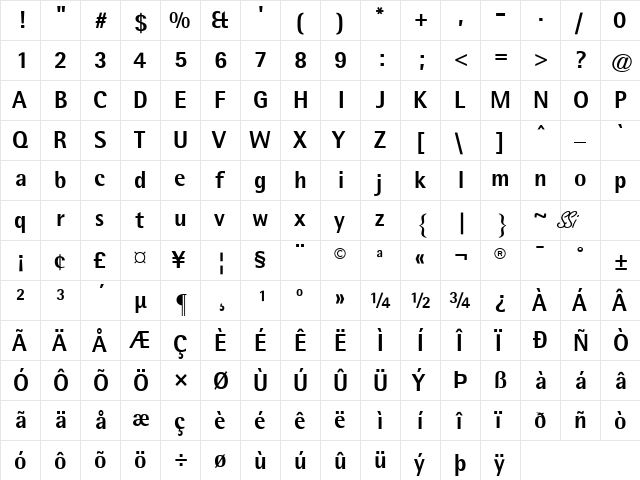
Libre SemiSans Black SSi Extra Bold
Design Context for Libre SemiSans Black SSi Typeface
Libre SemiSans Black SSi takes a measured approach to typography — its balanced proportions and neutral character make it a reliable workhorse for both digital and print work. Its bold stroke weight gives it real presence on the page.